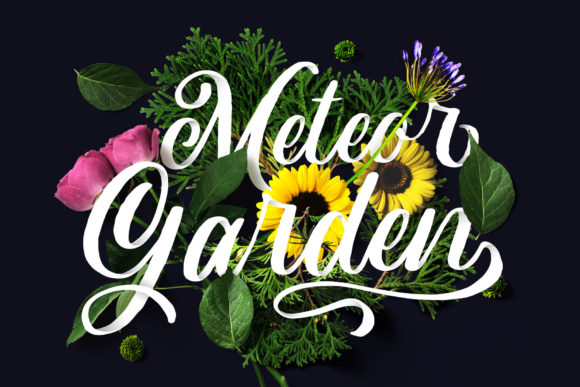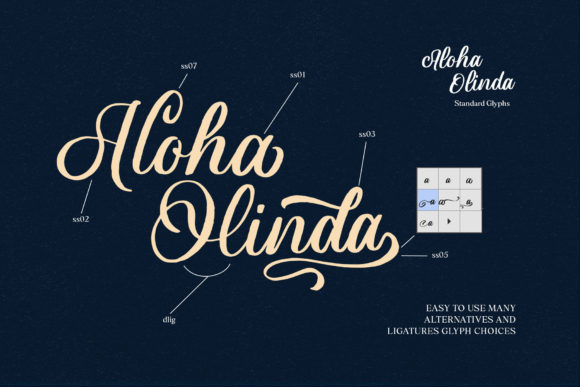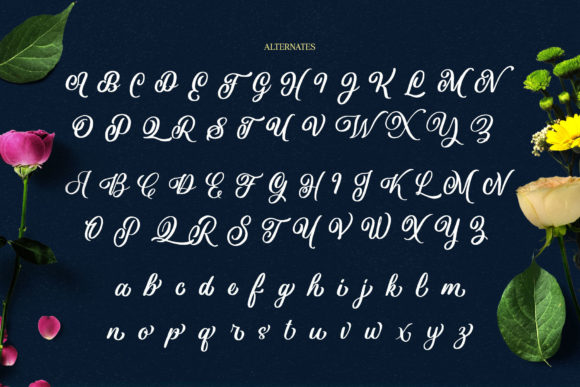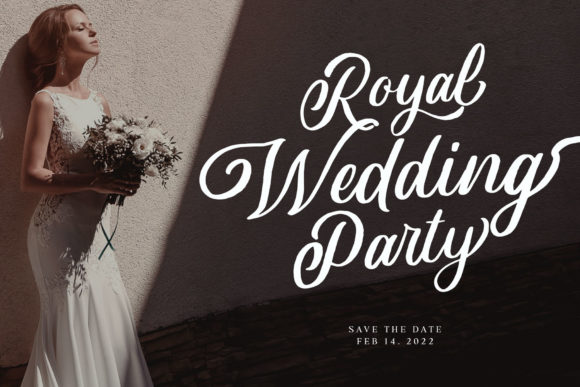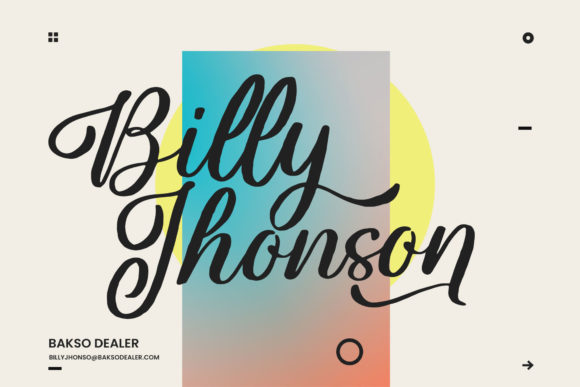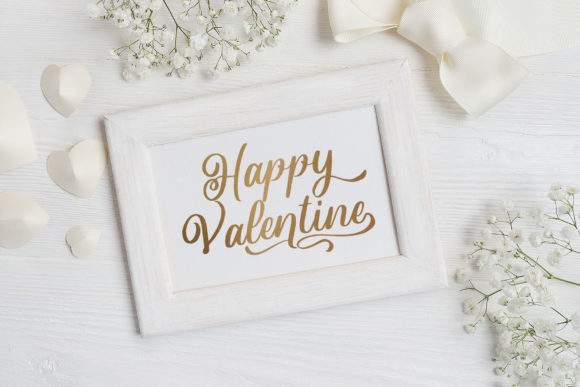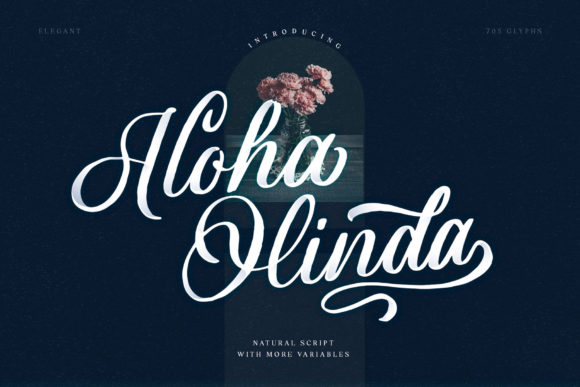
The Ultimate Design Game-Changer: Aloha Olinda Font
Have you ever been in the middle of a design project, pouring your heart and soul into it, only to get stuck on one thing: finding the perfect font? I certainly have! It was a typical Wednesday afternoon when I received a client request for a Hawaiian-themed wedding invitation. I had a clear vision of the design, but the font was missing. That’s when I stumbled upon the stunning Aloha Olinda script font. It was love at first sight! 💕
- 💫 The attention to detail: Aloha Olinda is meticulously crafted, making it perfect for projects that require a touch of elegance.
- 🔥 Highly versatile: Whether you’re designing a wedding invitation, a logo, or a social media graphic, this font adapts seamlessly.
- 🎉 PUA encoded: Easy access to all glyphs and swashes, which means you can get creative without any hassle!
- 👍 Neatly organized: The font comes with a range of features that make it easy to use, even for beginners.
While Aloha Olinda is an amazing font, there are a few things to keep in mind:
- 🤔 Learning curve: With so many features and glyphs available, it might take some time to get familiar with the font.
- ⚠️ Limited use in body text: Due to its script nature, Aloha Olinda is best used for headlines or short paragraphs.
A Little Backstory: Designer Inspiration
Aloha Olinda was crafted with love and care by a talented font designer who’s passionate about creating unique and beautiful typography. Inspired by the breathtaking landscapes of Hawaii, the designer aimed to create a font that captures the essence of aloha spirit. The result is a truly special font that’s perfect for any project that needs a touch of elegance and sophistication.
A: PUA (Private Use Area) encoding allows you to access all glyphs and swashes in the font, making it easy to get creative with your designs.
Q: Is Aloha Olinda suitable for body text?
A: While Aloha Olinda is a beautiful font, it’s best used for headlines or short paragraphs due to its script nature.